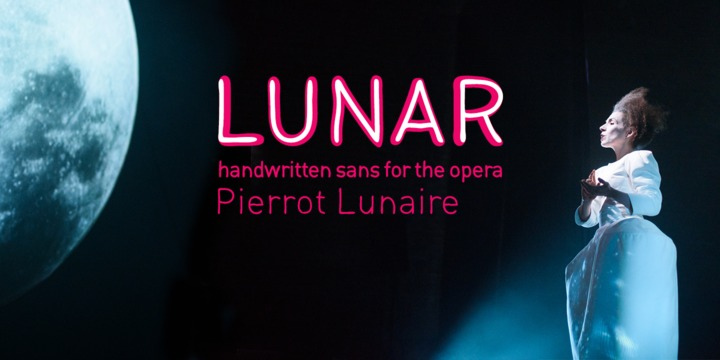
Lunar Font
Lunar Font is perfect for space exploration organizations, astronomy educational materials, lunar-themed restaurants, celestial wellness centers, space technology companies, and cosmic entertainment venues. This ethereal typeface excels in planetarium presentations, space science publications, moon phase calendars, and any application where celestial wonder and cosmic beauty create transcendent connections with space enthusiasts and stargazers.
What makes Lunar Font so exciting is its extraordinary ability to capture the mysterious allure and cosmic elegance of Earth's moon through gracefully curved letterforms that seem to glow with lunar light. The font features crater-inspired textures, orbital proportions, and celestial character shapes that embody the peaceful majesty of moonlit nights and space exploration. Its cosmic presence makes it perfect for brands celebrating the wonder of space and lunar exploration.
Lunar Font comes in a celestial family including New Moon, Crescent, Half Moon, Gibbous, and Full Moon weights. Each style features complete uppercase and lowercase character sets, astronomical symbols, cosmic numerals, and celestial punctuation marks. The font family also includes crater alternates, orbital ligatures, and phase variations that allow designers to create truly cosmic communications with astronomical appeal and professional space-age quality.
This mesmerizing typeface transforms communications into celestial journeys that inspire wonder and cosmic curiosity. Lunar Font Free Download provides space organizations and cosmic brands with essential typography that honors lunar beauty while serving contemporary space exploration communication needs. Whether you're developing brands for astronomy education, creating materials for space technology companies, or designing promotional content for cosmic entertainment venues, this font delivers authentic celestial resonance with lunar elegance.
The font's cosmic character makes it particularly effective for planetariums, space agencies, astronomy educators, and lunar-themed businesses. Its ethereal readability ensures that Lunar Font communicates clearly while maintaining its distinctive celestial personality. The font's ability to evoke wonder and cosmic exploration makes it an invaluable satellite for any project seeking to celebrate space heritage and connect with audiences through the universal appeal of lunar beauty, cosmic mystery, and the eternal human fascination with moon exploration and celestial discovery.